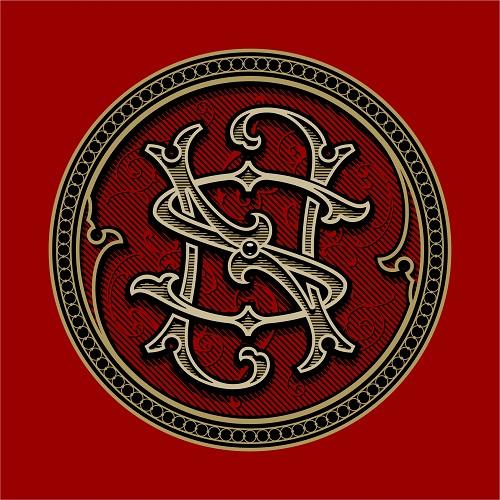
Gibswing Font Description
Gibswing is a cool, bold and thick lettered display font. It is PUA encoded which means you can access all of the glyphs and swashes with ease! Add it confidently to your favorite creations and let yourself be amazed by the outcome generated.